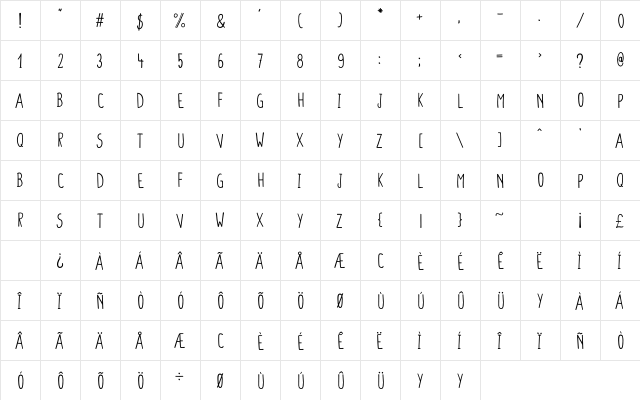
Colendra Regular
| Designer | Szymon Furjan |
Design Context for Colendra Typeface
Colendra is a composed and adaptable typeface that performs quietly and consistently across a wide range of design contexts.
Pro Tip: Pair Colendra with a font of contrasting weight or personality to build a more expressive typographic hierarchy.